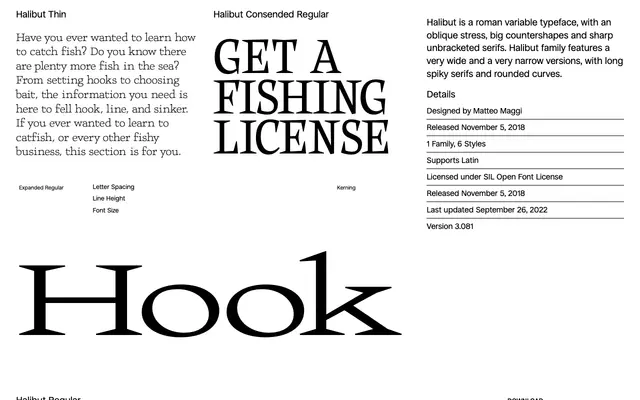
Halibut
Collletttivo · Matteo Maggi · 2018
A variable serif by Matteo Maggi with a wide-to-narrow width axis, oblique stress, unbracketed serifs and pronounced spiky terminals.
Released in 2018 and updated through 2022, Halibut spans condensed to expanded widths on a single variable axis alongside a weight axis running from Thin to Regular. The design features large counter shapes, sharp unbracketed serifs and rounded curves, making it better suited to display and titling than continuous text. Licensed under the SIL Open Font License and available as a free download from Collletttivo.
A roman serif with oblique stress, unbracketed serifs and wide-to-narrow width axis; the sharp, spiky serifs and variable width range place it firmly in the display serif territory with a geometric edge.